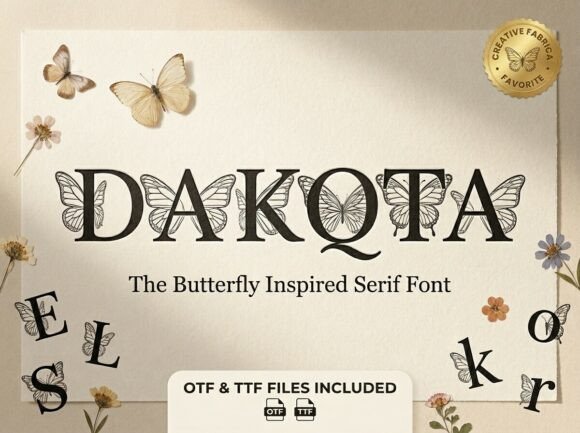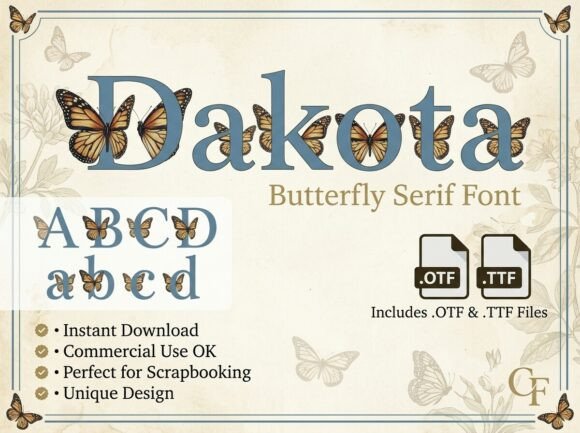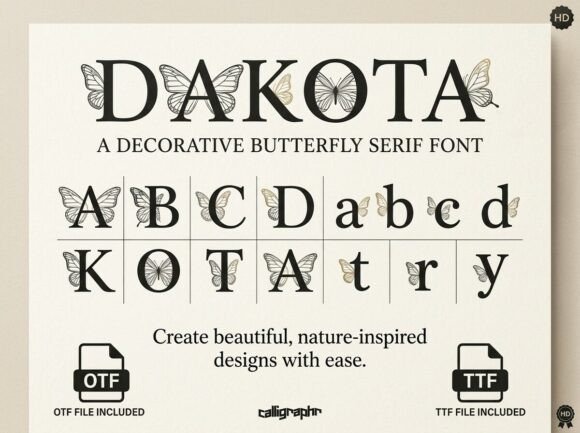
The Ultimate Guide to Dakota Font: Elevate Your Designs with a Stunning Display Font
Have you ever been in the middle of a design project, and suddenly, you’re stuck on finding the perfect font? I recall a particularly frustrating experience while working on a poster design for a local event. My client wanted a bold, eye-catching headline that would grab attention, but I was struggling to find a font that would make it happen. That’s when I stumbled upon the Dakota Font, and it completely transformed my design. In this article, we’ll dive into the world of Dakota Font, exploring its features, uses, and everything in between.
What Makes Dakota Font Special?
Dakota Font is a stunning decorative display font designed to be the center of attention. With its unique artistic elements and strong visual personality, this font is perfect for creators who want to break away from the ordinary. Its intricate details and creative letterforms make it ideal for high-impact designs where the typography needs to do the talking.
Honest Review: The Good and the Great
Here’s what I love about Dakota Font:
- ✨ Unique and creative letterforms that add an instant “wow” factor to any project
- ✅ Versatile and flexible for use in various design projects, from bold headlines to artistic logos
- 🔥 High-impact designs that demand attention, perfect for posters, social media, and packaging
- 💼 Professional and polished finish that elevates any design to the next level
And here are some small quirks or limitations to consider:
- 🤔 May not be suitable for body text due to its decorative nature and potential readability issues
- ⚠️ Requires careful kerning and spacing to ensure optimal results, especially in larger text sizes
How to Use Dakota Font: A Practical Guide
The Story Behind Dakota Font
Dakota Font was designed with the intention of creating a unique and creative display font that would capture attention. Inspired by the beauty of hand-drawn typography, the designer aimed to craft a font that would be both visually striking and versatile. With its intricate details and artistic elements, Dakota Font is perfect for designers who want to add a touch of personality to their work.
| What is Dakota Font best used for? | Dakota Font is ideal for high-impact designs, such as posters, social media, and packaging, where the typography needs to do the talking. |
| Is Dakota Font suitable for body text? | No, Dakota Font is a decorative display font and may not be suitable for body text due to its intricate details and potential readability issues. |
| Does Dakota Font come with OpenType features? | Yes, Dakota Font features OpenType features, such as stylistic alternates, glyphs, and swashes, which can be accessed in compatible design software. |